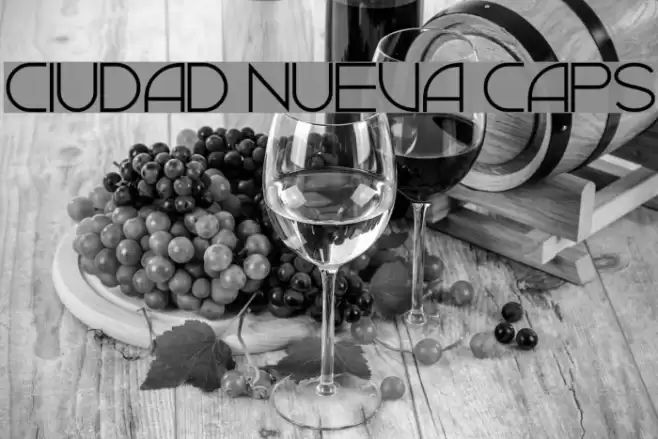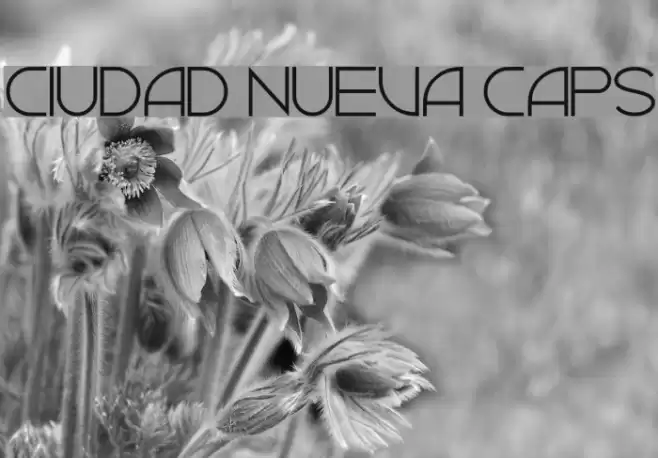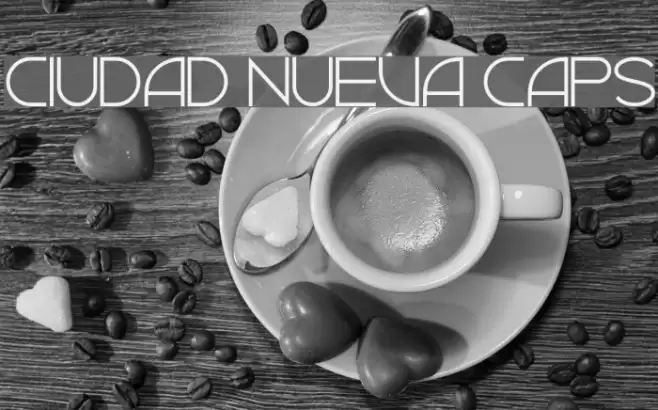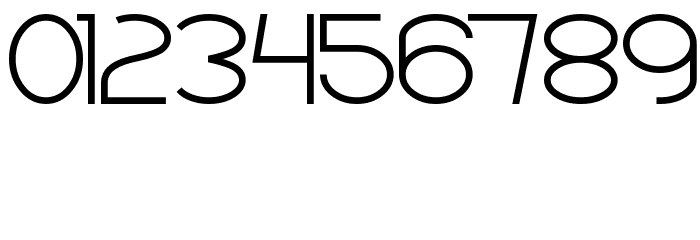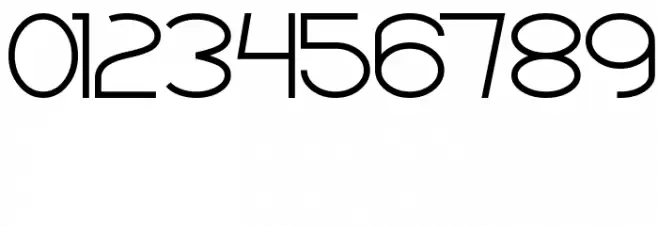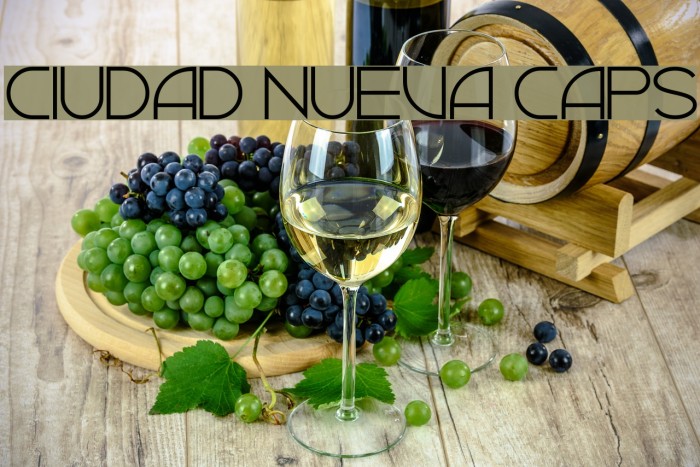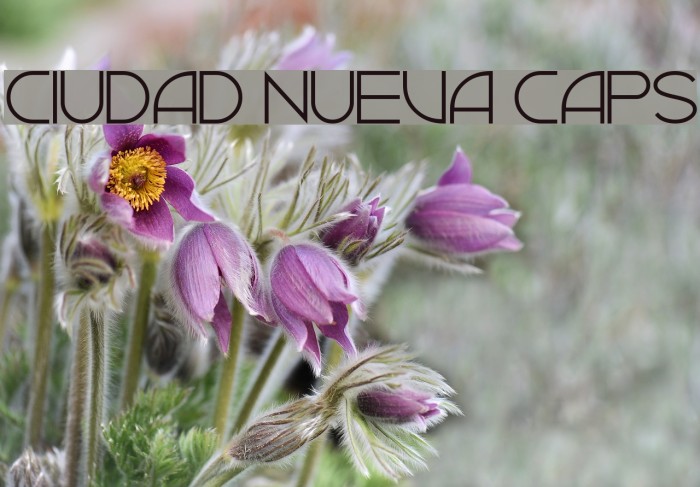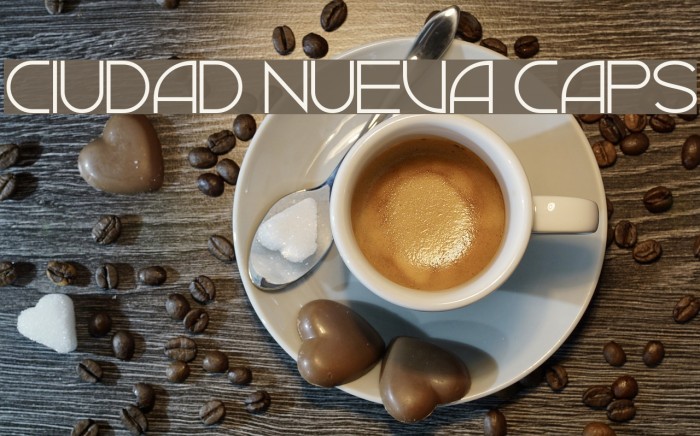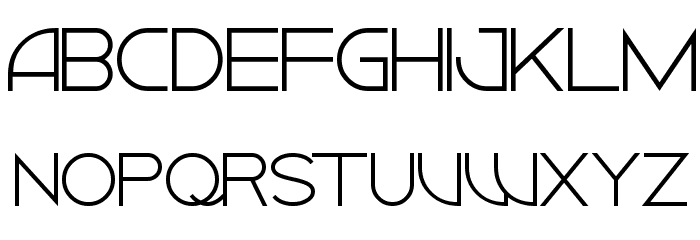
Ciudad Nueva CAPS Font
Ciudad Nueva CAPS Description
This font features a modern and geometric design with clean lines and a minimalist aesthetic. The characters are constructed with a consistent stroke width, giving it a uniform appearance. The uppercase letters have a futuristic feel, with some characters incorporating unique angles and curves that add a distinctive touch. The numerals are bold and clear, making them easily readable. Overall, the font exudes a sleek and contemporary vibe, suitable for various design applications.
A modern, geometric font with clean lines and a minimalist style from Uncategorized fonts.